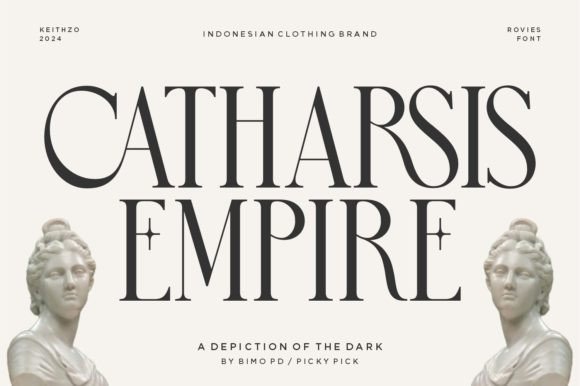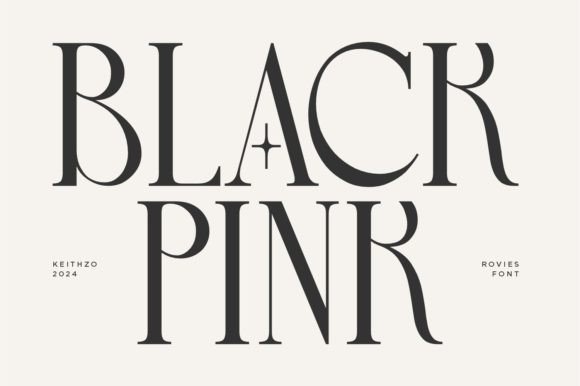
Rovies Font
Experience the charm of Rovies font, a visually stunning typography with a touch of elegance. Rovies font impeccably breathes life into clothing logos, lending each design an irresistible aesthetic allure.